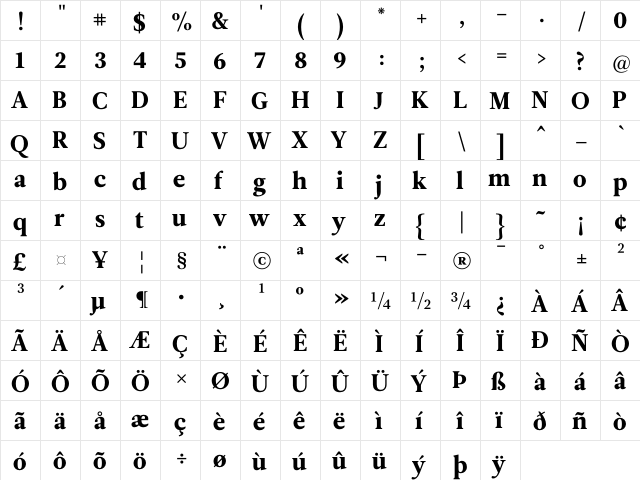
Leitura News Roman 4
| Foundry | Dino dos Santos _DSType |
| Designer | Dino dos Santos |
Design Context for Leitura News Typeface
Leitura News is a composed and adaptable typeface that performs quietly and consistently across a wide range of design contexts.